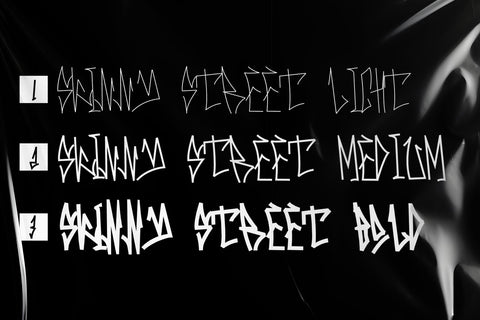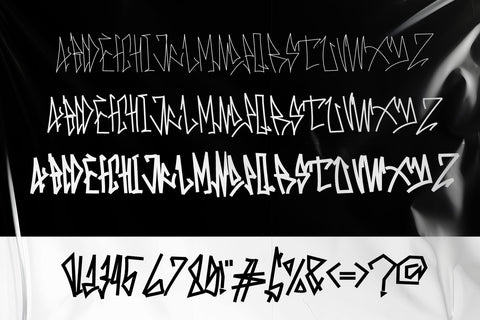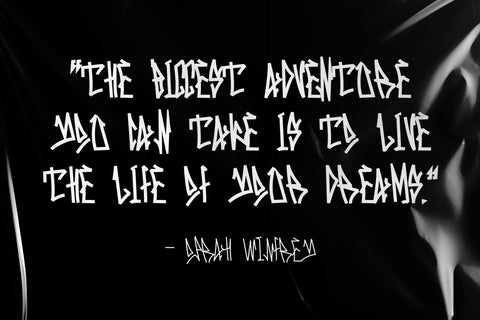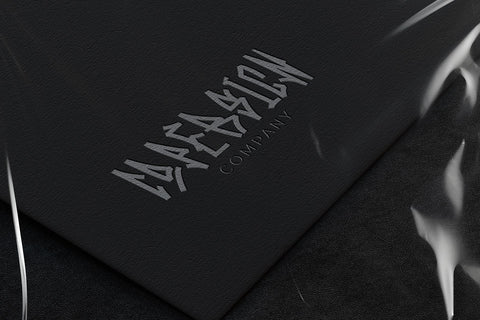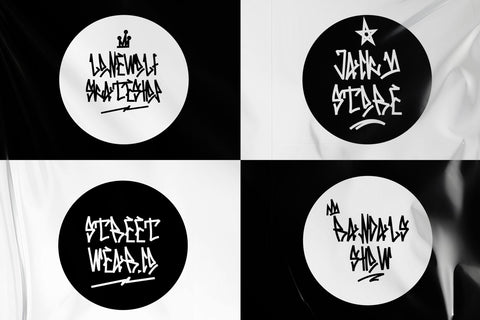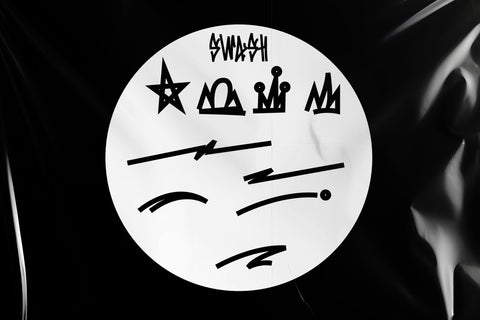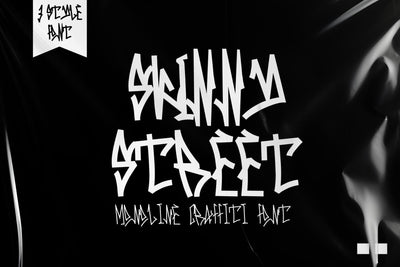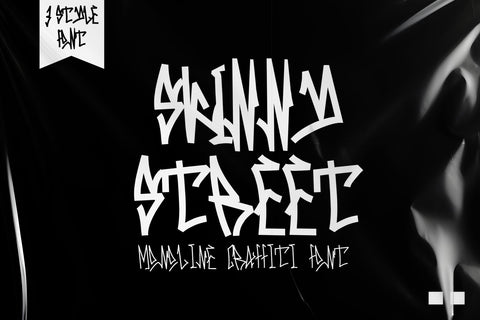
Skinny Street - One line Graffiti Font Included
"Skinny Street" is a monoline graffiti font that offers three different widths: light, medium, and bold. Monoline fonts maintain consistent stroke thickness throughout the characters, giving them a sleek and uniform appearance. The availability of three widths—light, medium, and bold—provides versatility in typography, allowing for various levels of emphasis and impact in design compositions.
- Graffiti Characters looks